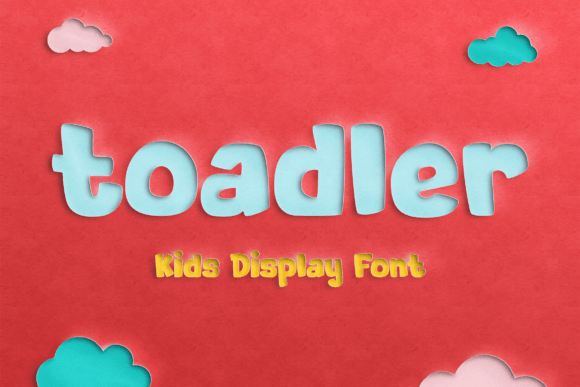
Journey into the realm of imagination, where letters leap and dance with childlike wonder. Toadler Font, a display font family, invites you to embrace the joy of creativity, igniting smiles and capturing hearts. Inspired by the boundless energy of toddlers, this font exudes playfulness and innocence.
Crafted with meticulous care by Modestype Studio, Toadler Font embodies the essence of youthfulness. Its bold and vibrant strokes evoke a sense of carefree adventure, making it the perfect choice for projects that seek to engage and enchant. Whether you're creating children's books that spark curiosity, designing online games that transport players to magical worlds, or crafting posters for teen events that ooze excitement, Toadler Font is your steadfast companion.
Toadler Font's versatility knows no bounds. Its whimsical charm adds a touch of enchantment to school supplies, transforming notebooks and pencils into objects of delight. Posters adorned with Toadler Font come alive with captivating titles that demand attention. Movie titles and YouTube covers pulsate with energy, inviting viewers to immerse themselves in captivating stories. Social media pages adorned with Toadler Font radiate personality, attracting followers who appreciate the font's infectious enthusiasm.
Toadler Font is more than just a collection of characters; it's an invitation to unleash your inner child and let creativity run wild. Its playful nature inspires smiles and sparks imagination, making it the ideal choice for projects that aim to connect with the young and the young at heart.